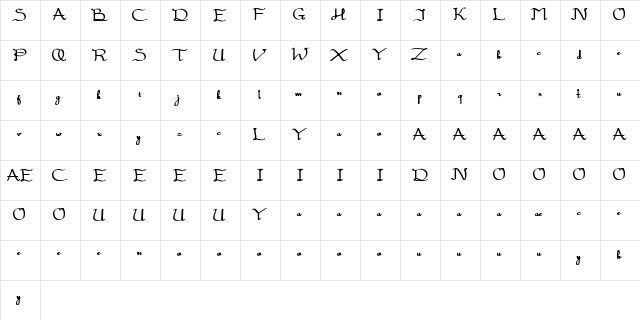
Sellomitha Demo SemiBold
Design Context for Sellomitha Demo Typeface
Sellomitha Demo is a composed and adaptable typeface that performs quietly and consistently across a wide range of design contexts. The heavy weight commands attention and anchors typographic hierarchies.